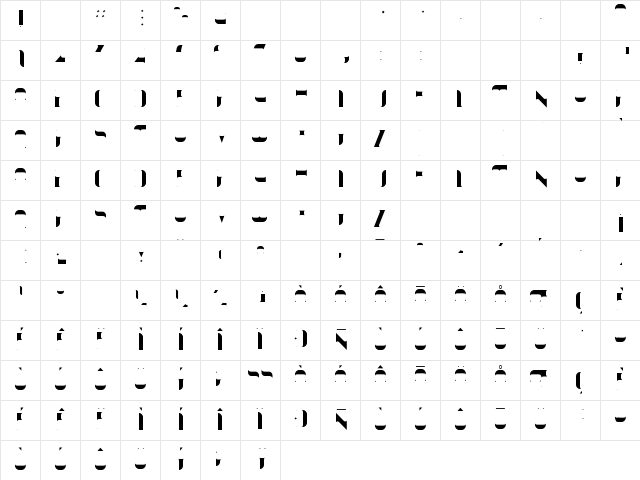
Krait Fill
Style: Fill
Krait Family
Design Context for Krait
Krait is a composed and adaptable typeface that performs quietly and consistently across a wide range of design contexts.